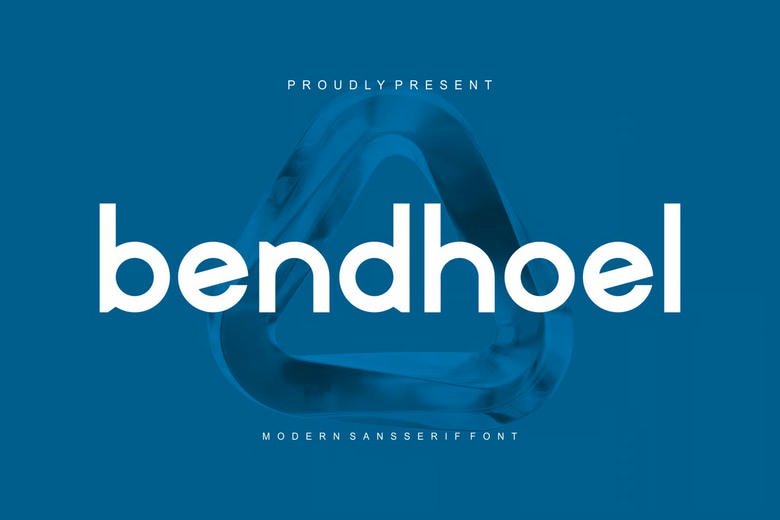
Bendhoel Font
Bendhoel Font is a bold and authentic display typeface. It works well for branding projects such as logos, t-shirt designs, esports, and more. This font stands out in many different settings.
Bendhoel Sans Serif Font